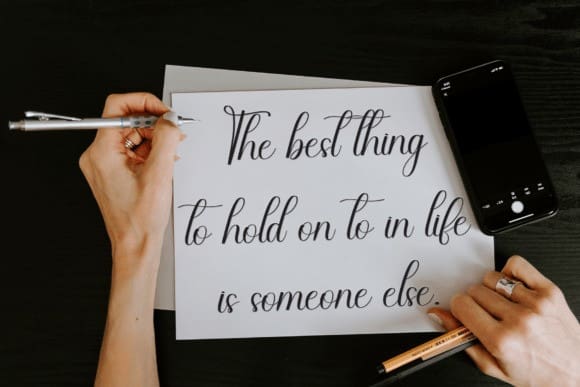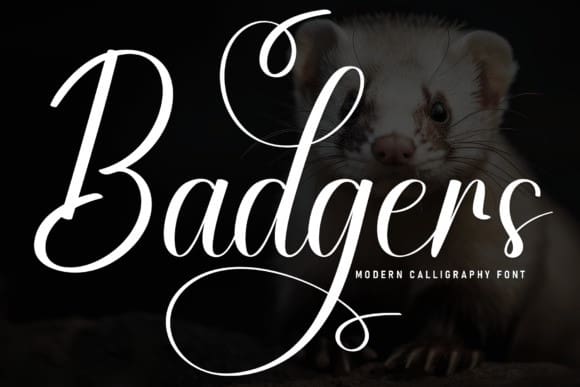
Badgers Script Font
Badgers Script Font is a delicate, elegant and flowing handwritten font. It has beautiful and well balanced characters and as a result, it matches a wide pool of designs. Add it to your most creative ideas and notice how it makes them come alive!